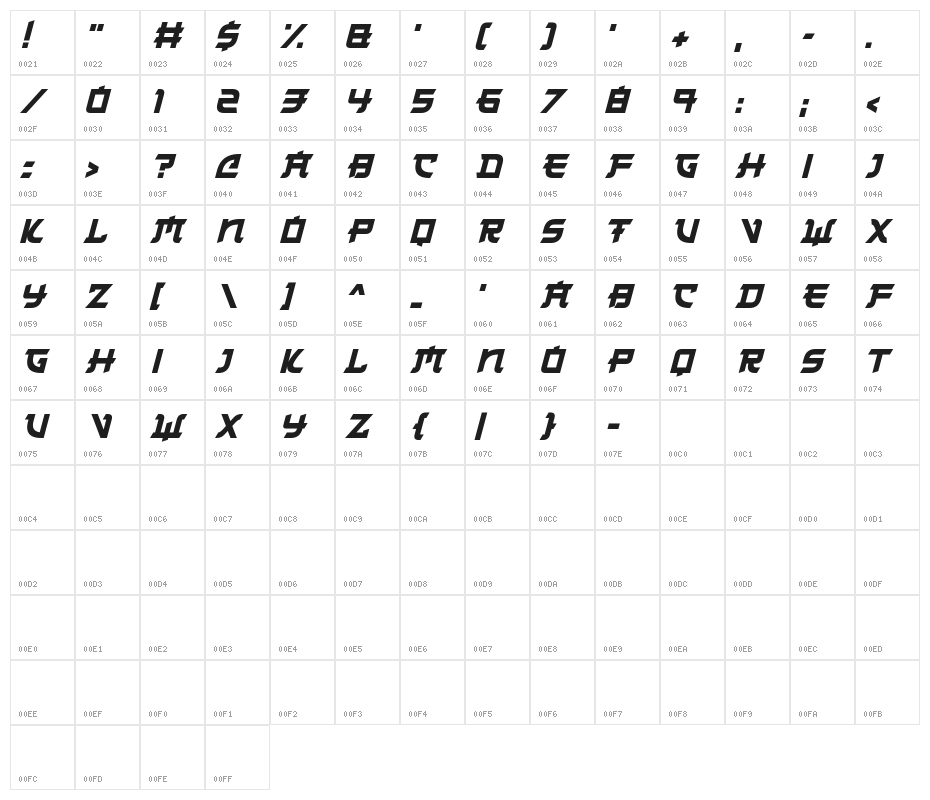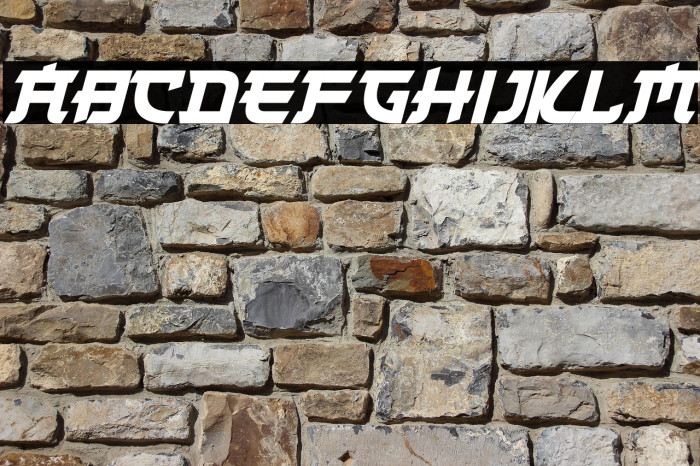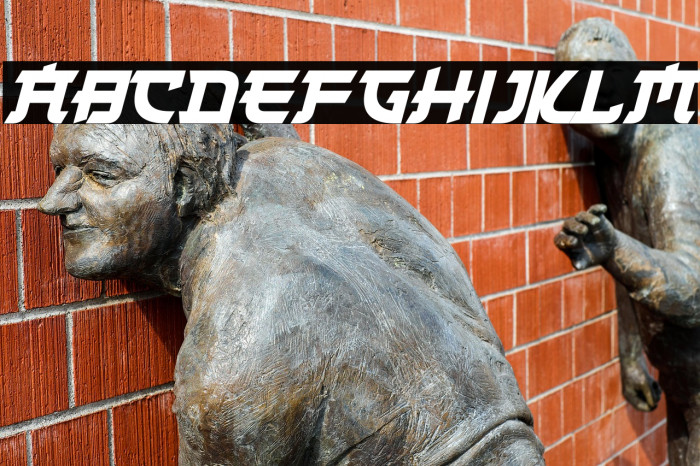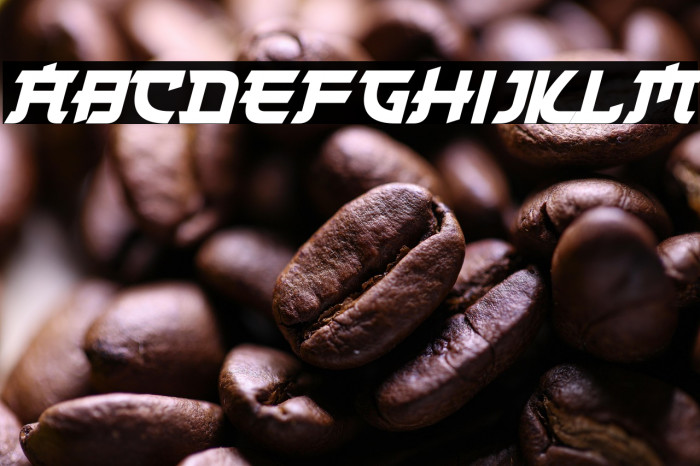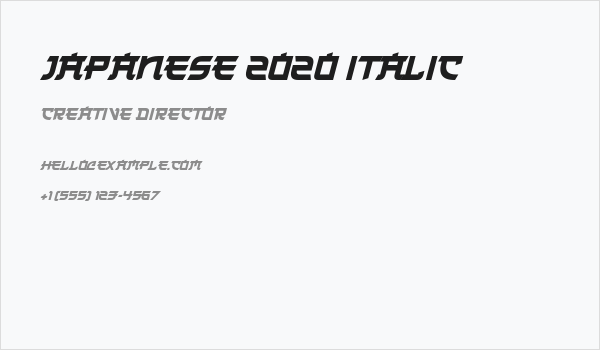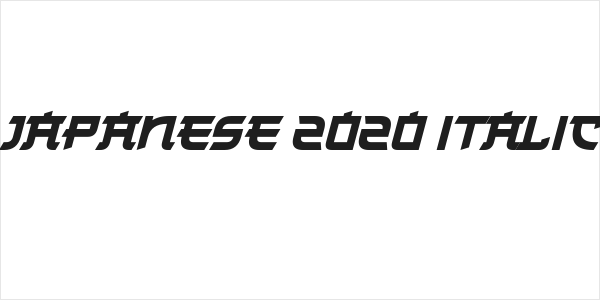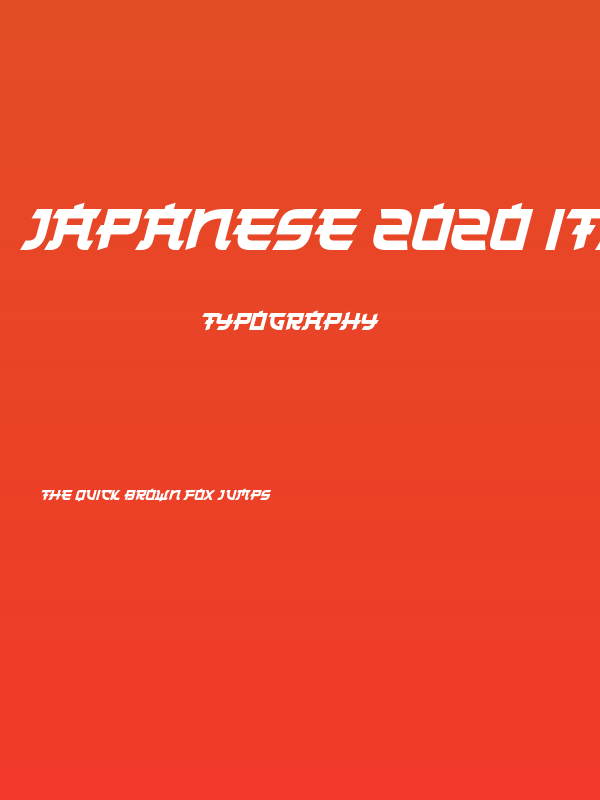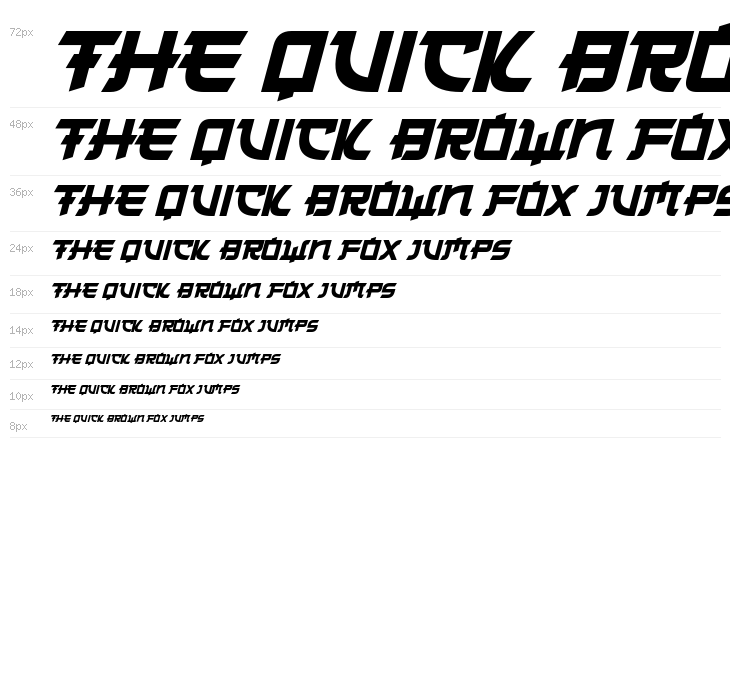
Japanese 2020 Italic Font
Japanese 2020 Italic Description
This font features a bold, italicized style with a futuristic and dynamic appearance. The characters are sharply angled, giving them a sense of motion and energy. The strokes are thick and consistent, providing a strong presence on the page. The design incorporates unique cuts and edges, reminiscent of modern digital or sci-fi aesthetics. This font is highly legible, with each letter distinctly formed, making it suitable for impactful headlines or branding. The numbers and special characters maintain the same bold and angular style, ensuring a cohesive look across all text elements.
| Proposed Projects | Ideal for use in sci-fi movie posters, video game titles, technology branding, and modern advertising campaigns. |